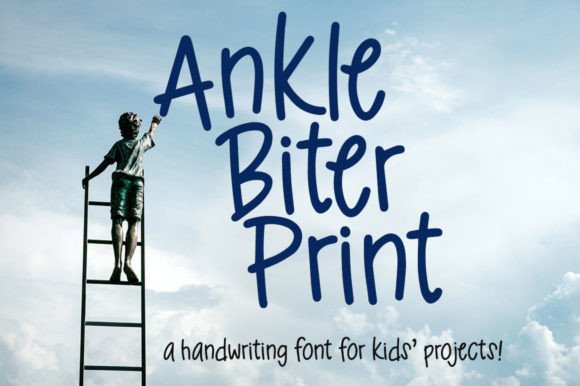
The Ultimate Font for Kid-Friendly Designs: Ankle Biter Print
I’ll never forget the time I was working on a design project for a client’s kids’ party, and I just couldn’t find the right font. I wanted something fun, playful, and kid-friendly, but everything I tried looked either too boring or too over-the-top. That’s when I stumbled upon Ankle Biter Print, and it instantly became my go-to font for all things kid-related. In this article, I’ll share my love for Ankle Biter Print, its features, and how to make the most of it in your designs.
What Makes Ankle Biter Print Special?
Ankle Biter Print is a smooth, evenly-weighted print font that’s perfect for all your kid projects. Whether you’re making a water bottle for a boy or a t-shirt for a girl, Ankle Biter lends a fun hand-lettered look to your design. Here are some of its standout features:
- ✅ Over 300 extended Latin characters for language support
- ✅ Fully PUA-encoded for easy access to all glyphs
I’ve been using Ankle Biter Print for a while now, and here are some things that I absolutely love about it:
- ✨ The font’s smooth, hand-lettered feel makes it perfect for kid-friendly designs
- ✅ The even weight and spacing make it highly legible, even at smaller sizes
- ✅ The comprehensive character support and language support make it a great choice for international projects
While Ankle Biter Print is an excellent font, there are a few minor quirks to be aware of:
- ⚠️ Some users might find the font a bit too casual for certain projects
- 🤔 The font’s hand-lettered feel might not be suitable for very formal or corporate designs
Ankle Biter Print was created with the goal of providing a fun, kid-friendly font that’s perfect for designs that need a playful touch. The font’s designer wanted to create a font that’s both highly legible and visually appealing, making it perfect for a wide range of projects.